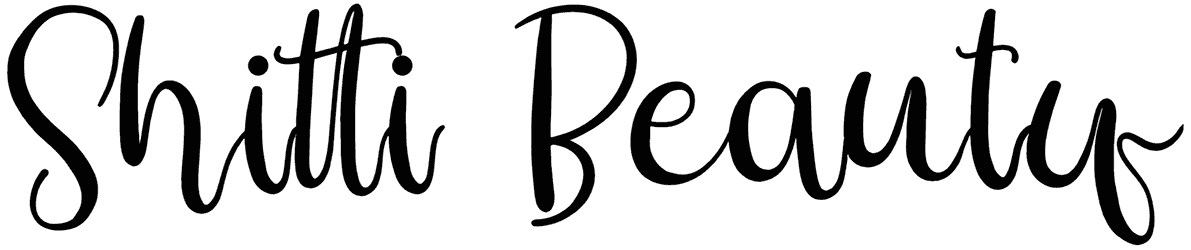
Shitti Beauty Font
Take a look at this unique script font with smooth lines and an appealing vibe. Shitti Beauty embodies a timeless style that works well in both modern and classic layouts. With a full cover of characters, this invitation font would be a sweet showcase for a lot of designs, namely greeting cards, branding, packaging, or whatnot.